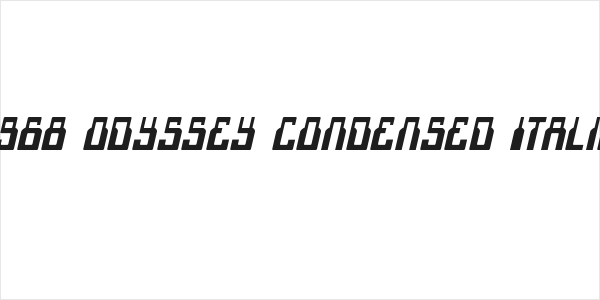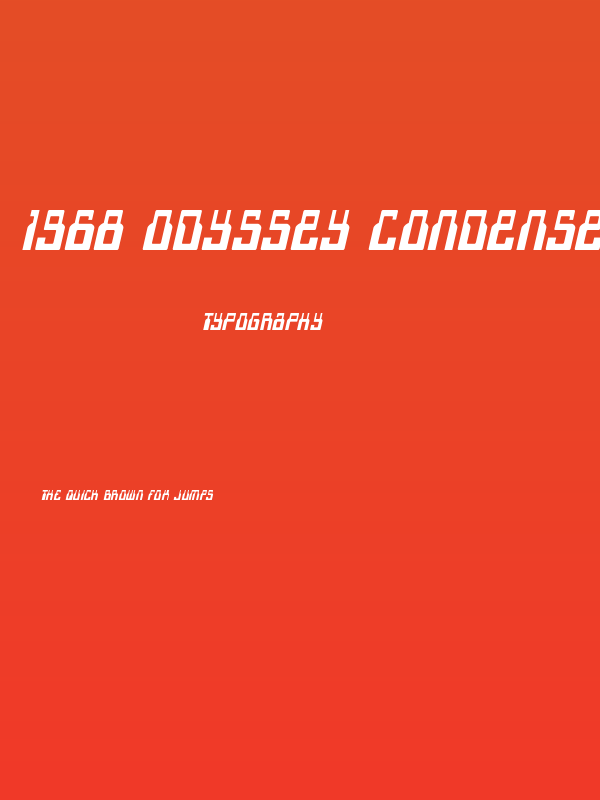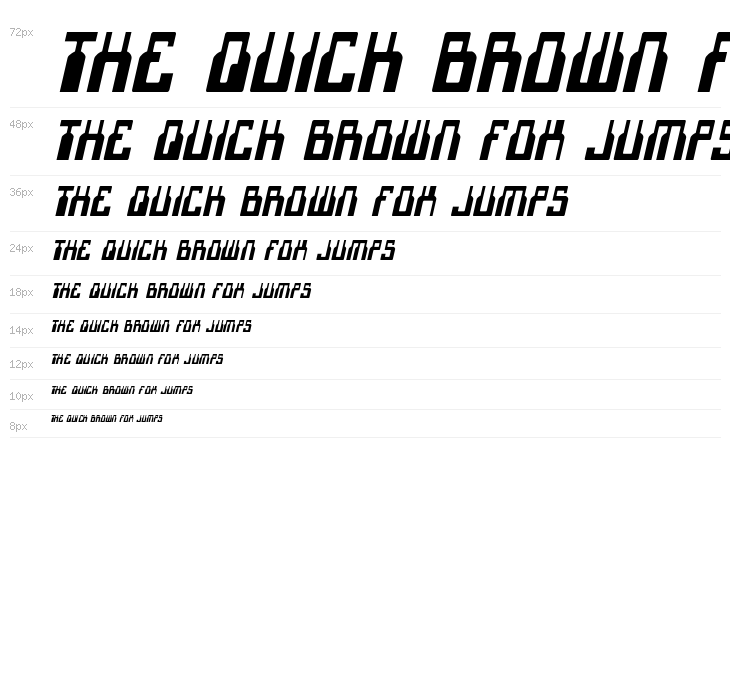
1968 Odyssey Condensed Italic Font
1968 Odyssey Condensed Italic Description
This font features a futuristic and geometric design with a condensed and italicized style. The characters are bold and angular, giving a sense of movement and modernity. The uppercase and lowercase letters maintain a consistent slant, enhancing the italic effect. The numbers and special characters follow the same design principles, ensuring uniformity across the font. The overall appearance is sleek and dynamic, making it suitable for projects that require a contemporary and edgy look.
Proposed ProjectsIdeal for sci-fi themed designs, modern branding, tech-related projects, and dynamic posters.